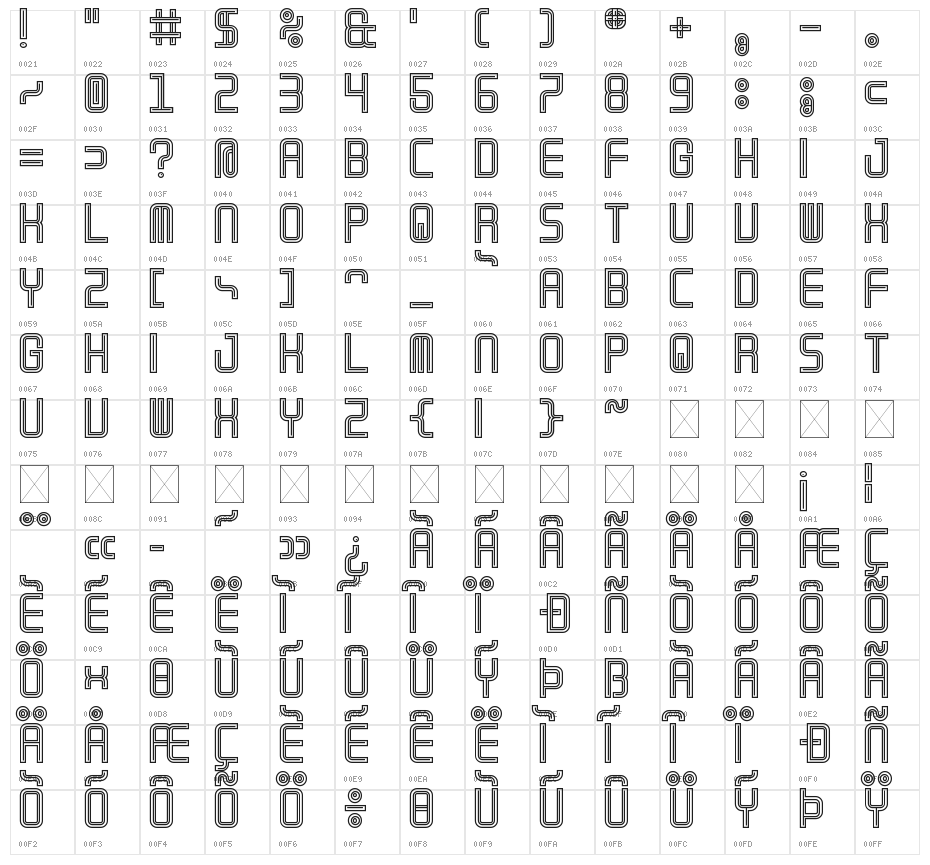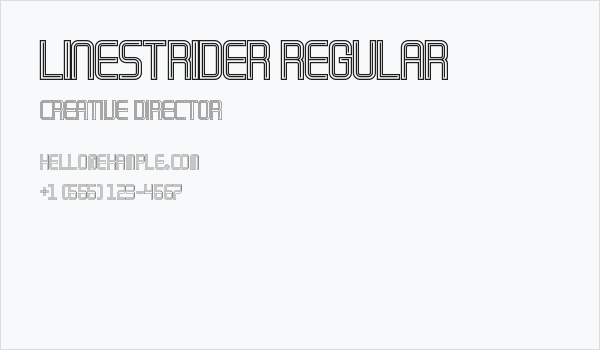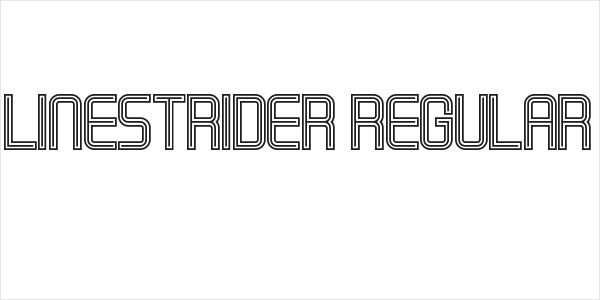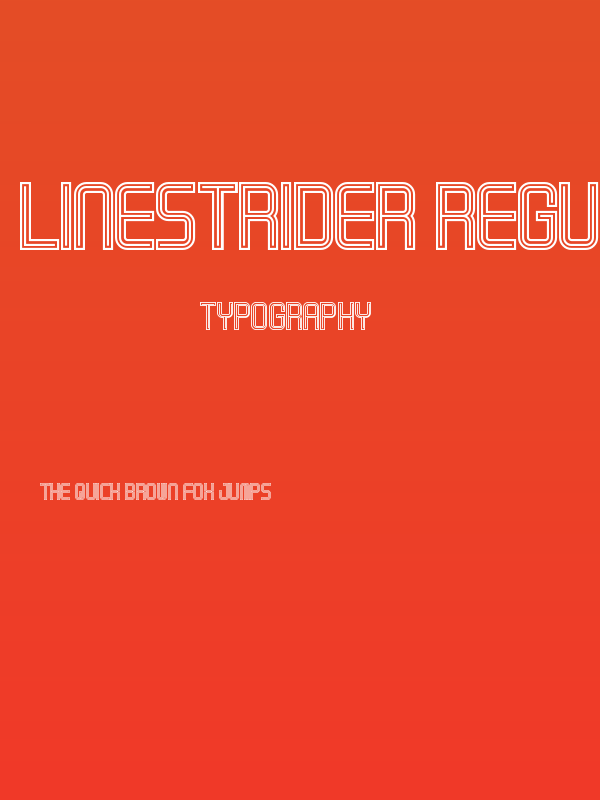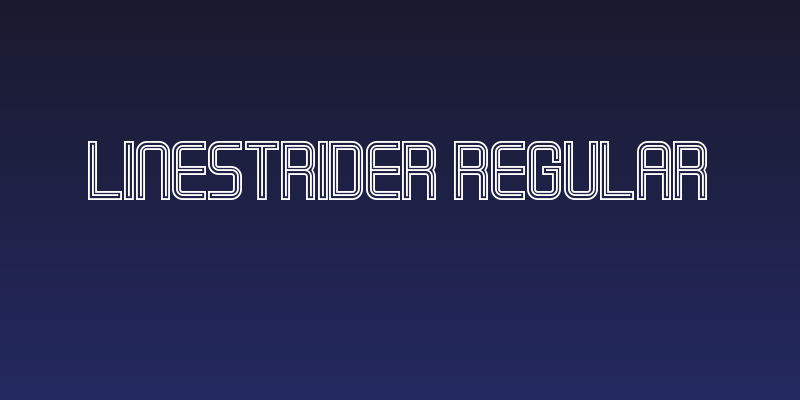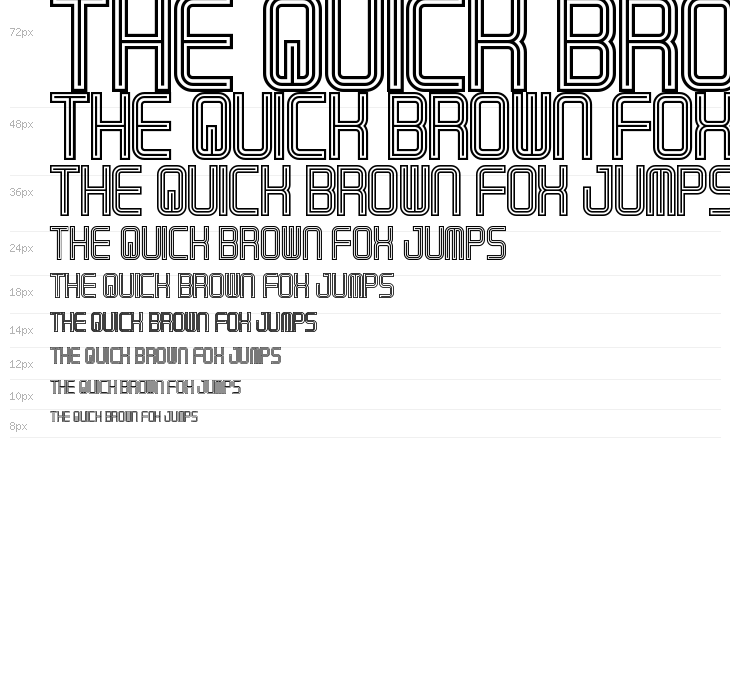
Linestrider Regular Font
Linestrider Regular Description
This font features a unique, geometric design with a double-line structure that creates a striking visual effect. The characters are constructed with parallel lines, giving them a modern and futuristic appearance. The uppercase and lowercase letters maintain a consistent style, with clean lines and sharp angles. The numerals and special characters follow the same design principles, ensuring a cohesive look across all elements. This font's distinct style makes it suitable for projects that require a bold and eye-catching typeface.
| Proposed Projects | Ideal for branding, posters, album covers, and any design needing a bold, modern touch. |